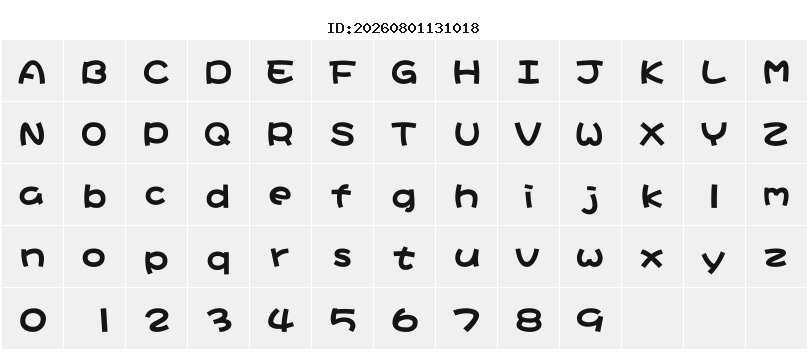
• Font Name: DFPHaiBaoW9-B5
• Full Font Name: DFPHaiBaoW9-B5
• Version: Version 2.00
• PostScript Name: DFHaiBao-W9-HKP-BF
About DFPHaiBaoW9-B5.TTF
DFPHaiBaoW9-B5.TTF is a modern, elegant sans-serif font designed for ultimate readability and visual harmony. Perfect for branding, headlines, web design, and print materials.